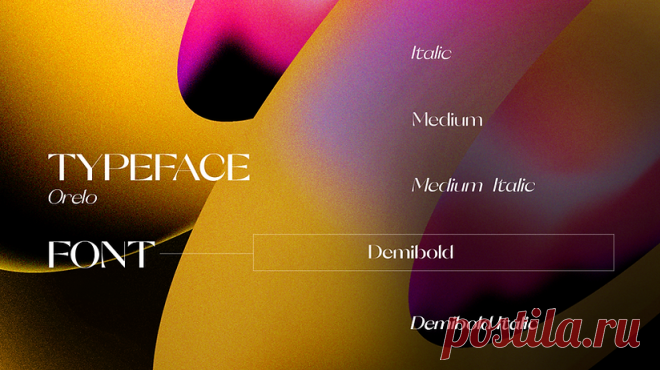
WHAT IS A FONT
A font is a crucial element in visual communication that plays a significant role in conveying messages effectively. It refers to the style and design of the characters used in writing, whether on paper or digital platforms. Fonts are not merely different styles of letters but also reflect emotions, themes, and attitudes. They have evolved, adapting to changing trends and technological advancements.